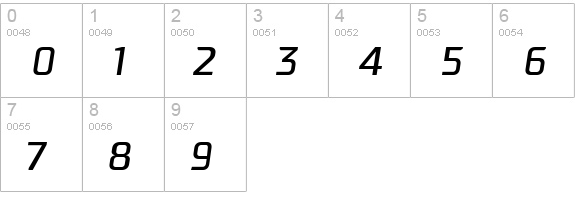
Supermolot Italic Font Details
Supermolot Italic is a distinctive, italic variant in the Supermolot typeface family \xE2\x80\x94 well suited to design and typography projects.
Supermolot Italic font is a stunning display typeface that exudes elegance and sophistication. With its sleek and modern design, this font is perfect for creating eye-catching headlines, posters, and branding materials. The italic style adds a touch of flair and dynamism to any design project. The best part is that Supermolot Italic font is available for free! You can download it at FontsMarket.com, where a wide range of high-quality fonts are offered for designers and creatives. Don't miss out on this fantastic opportunity to enhance your projects with the stylish Supermolot Italic font. Download it today and elevate your designs to the next level!